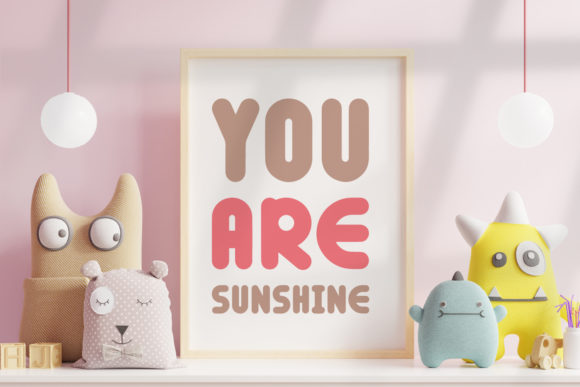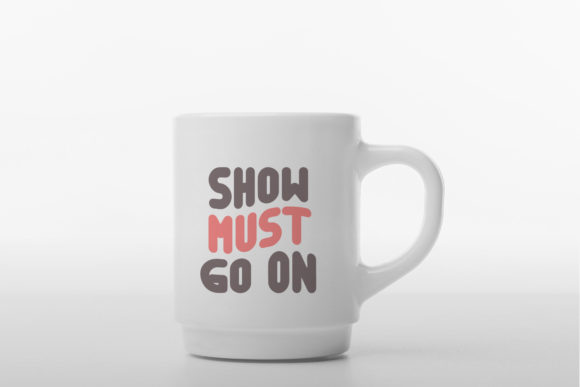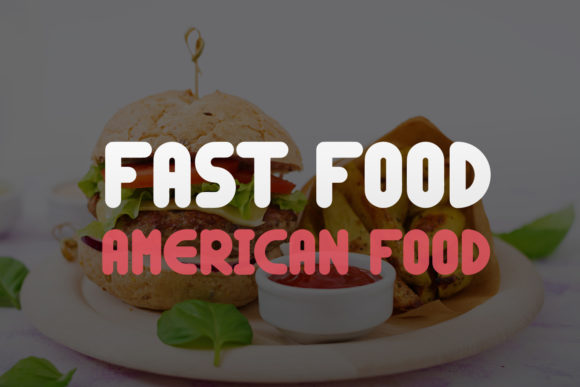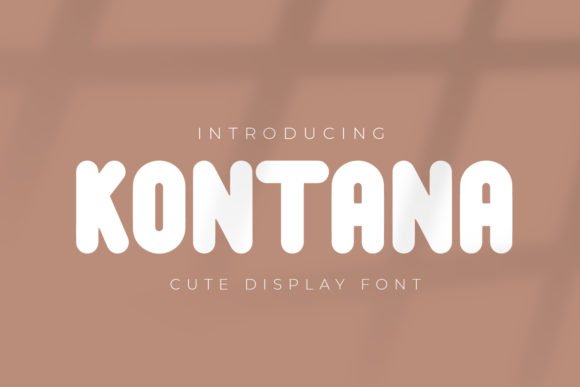
Introduction to Kontana Font
Kontana is a bold and thick lettered display font.
It is suitable for any branding, product packaging, invitation, quote, t-shirt, label, poster, logo that you wish to develop .